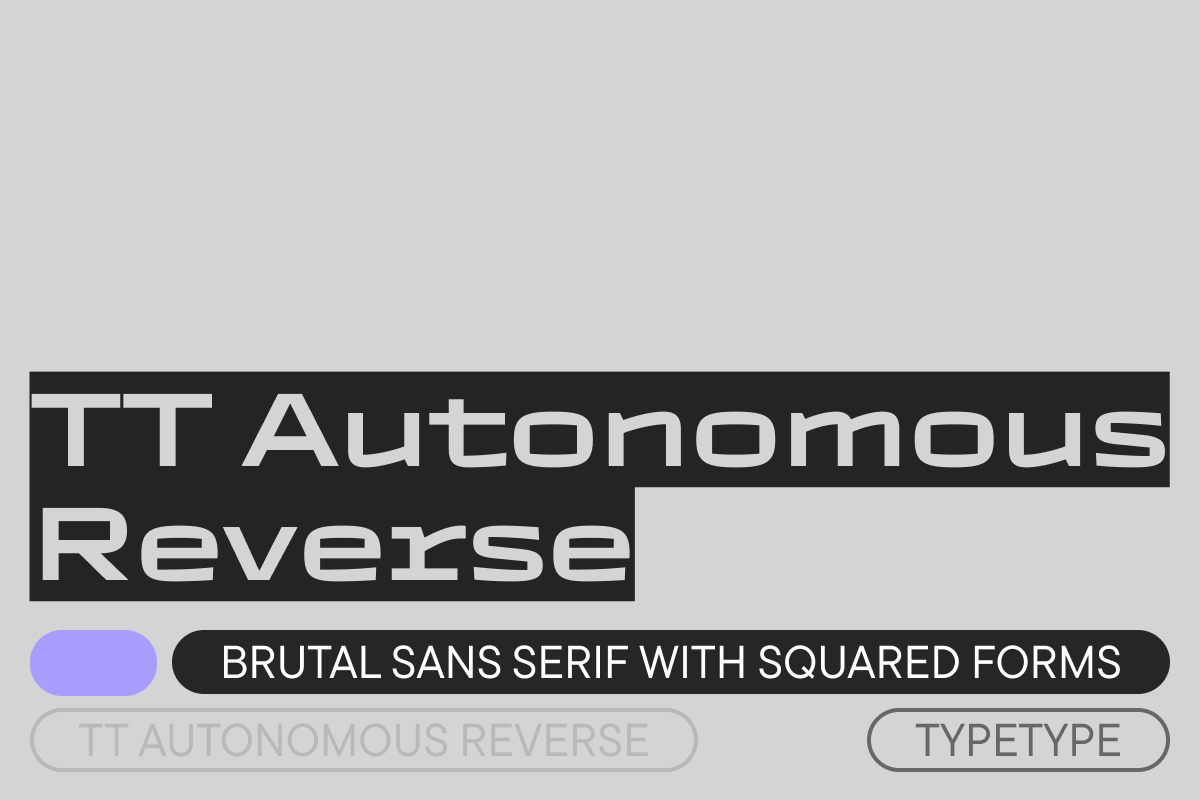
TT Autonomous Reverse ExtraLight
TT Autonomous is a modern brutal technological sans serif. The basic visual characteristic of the typeface is the noticeable squareness of the characters and angular internal space. In addition, the typeface proportions tend to appear monospaced, but they are not really monospaced. The width of the characters is inspired by automobile logotype proportions, which are mostly rather wide.